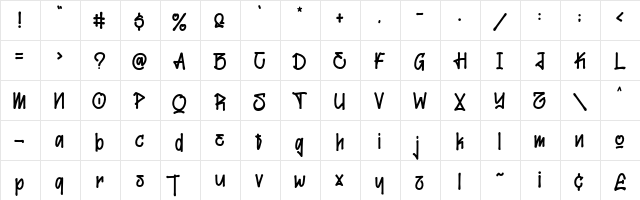
Maxtield Regular
| Foundry | Garisman Studio |
| Designer | Risman Ginarwan |
Design Context for Maxtield Typeface
Maxtield is a composed and adaptable typeface that performs quietly and consistently across a wide range of design contexts.